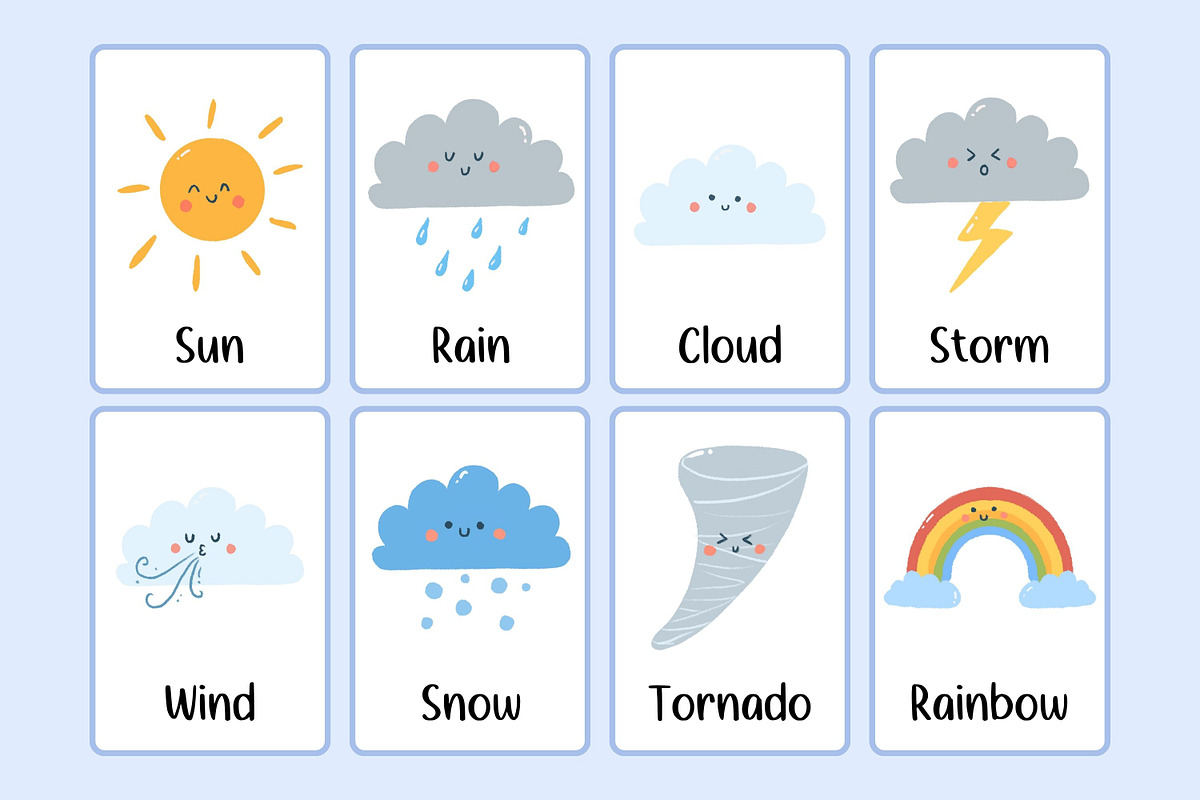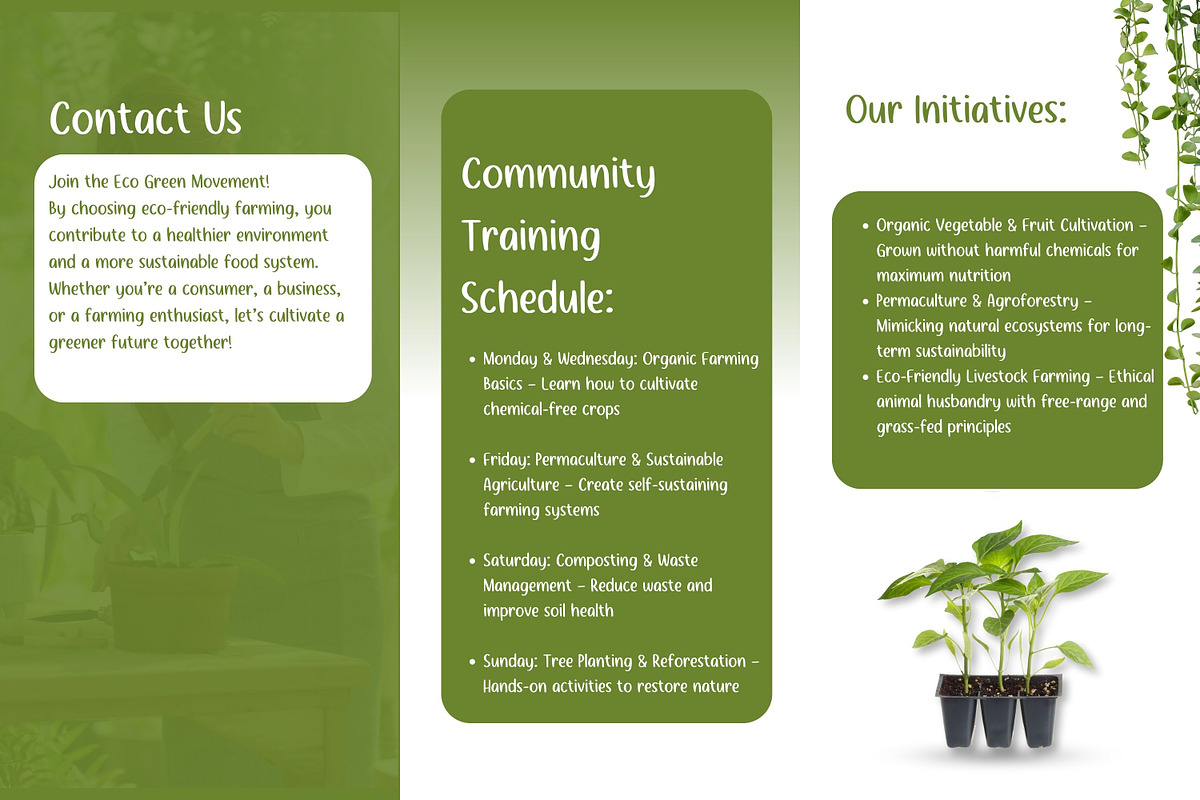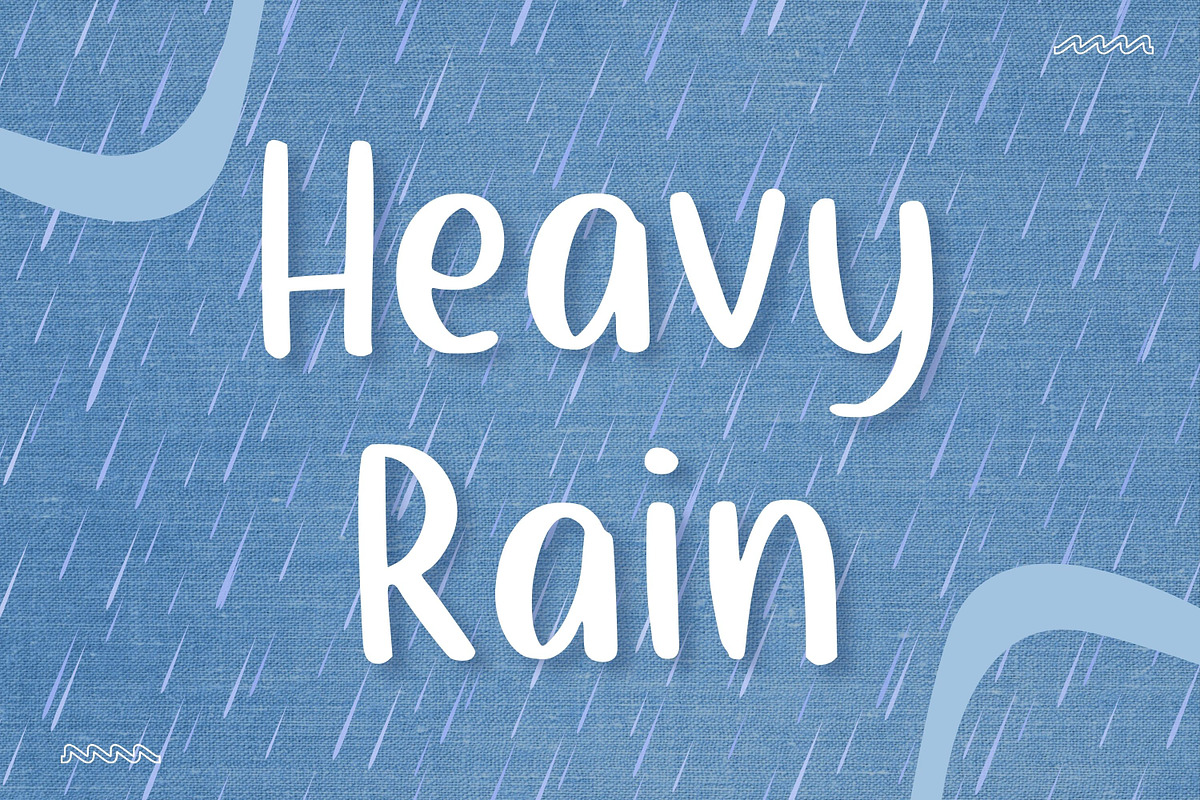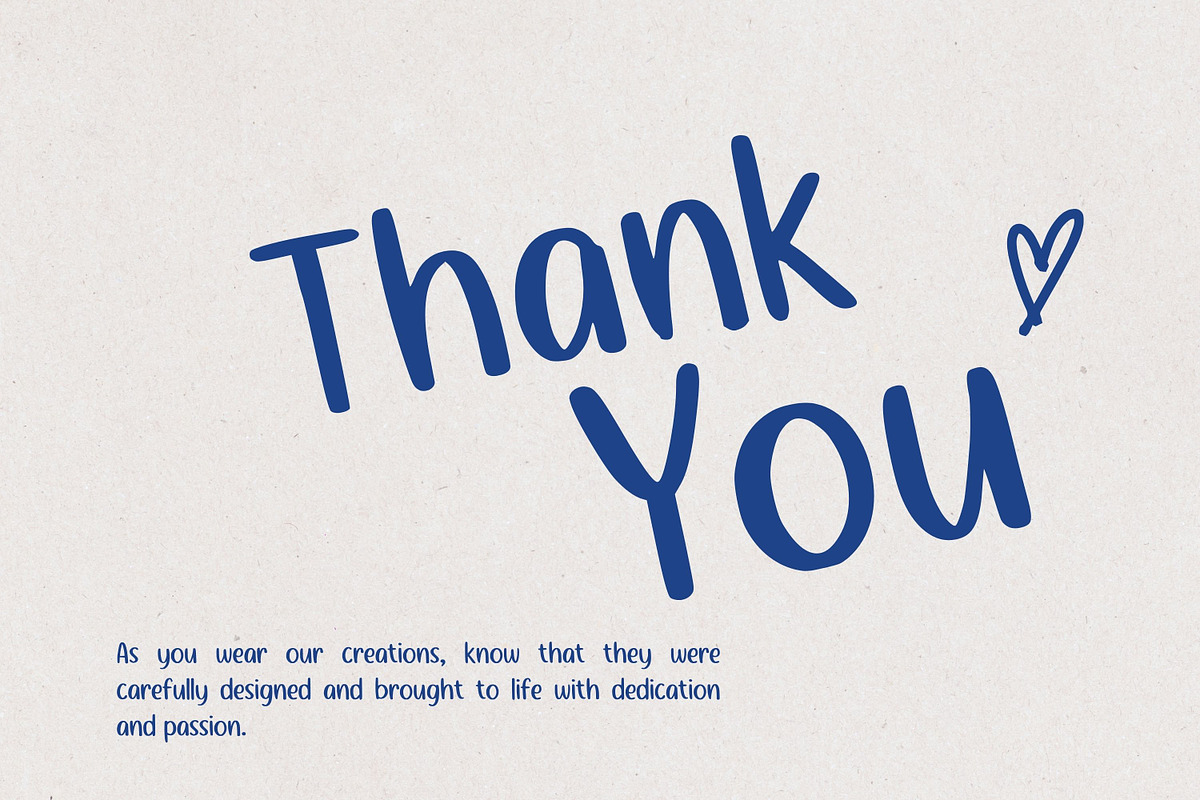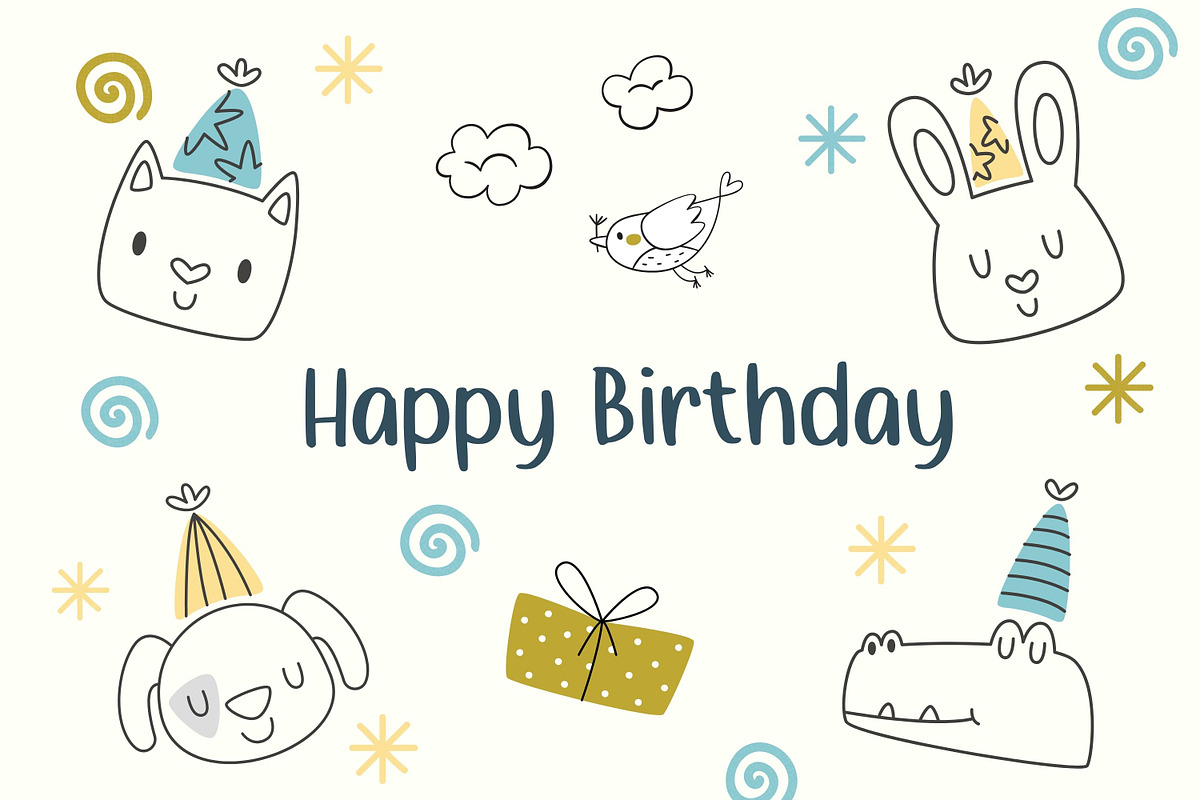
Heavy Rain
Experience the charm of "Heavy Rain," an adorable yet sophisticated handwriting font. This distinctive typeface, characterized by its cool and playful style, is ideal for establishing a unique brand identity or delivering comprehensive text with flair. Whether you're crafting professional memos or getting creative, let Heavy Rain serve as your perfect typography companion.